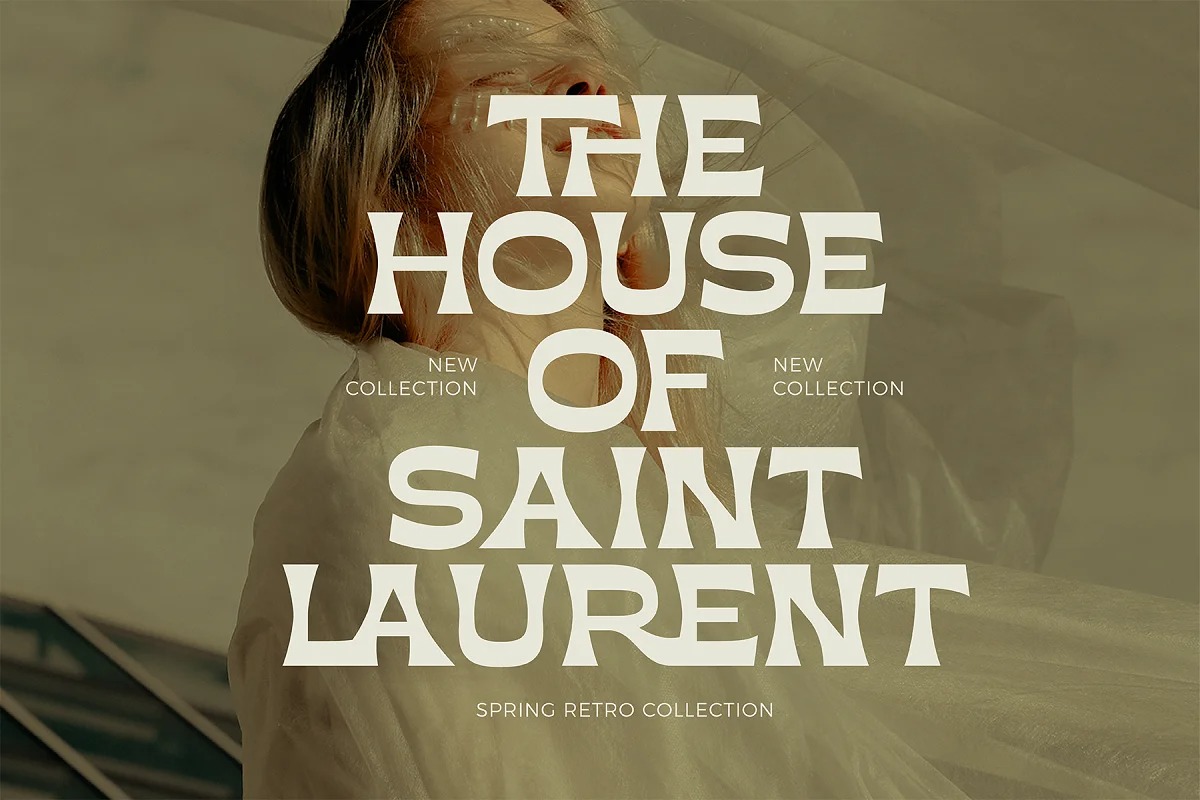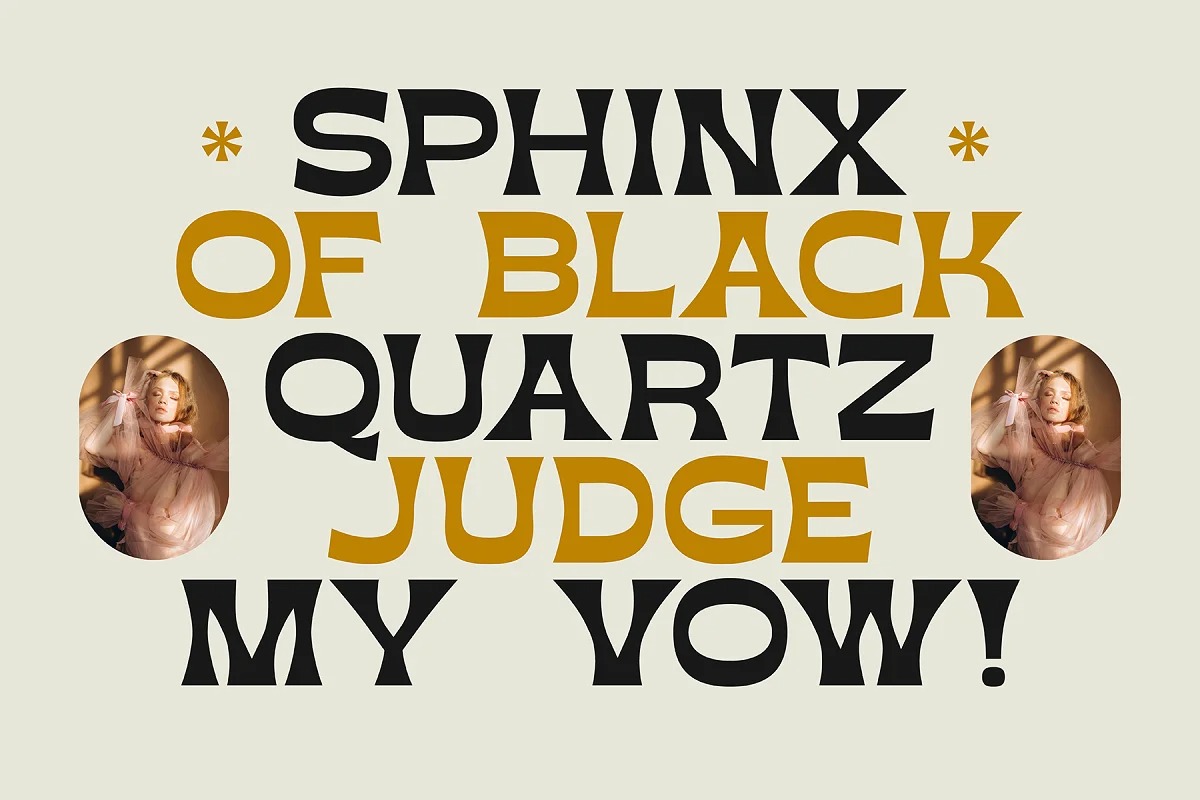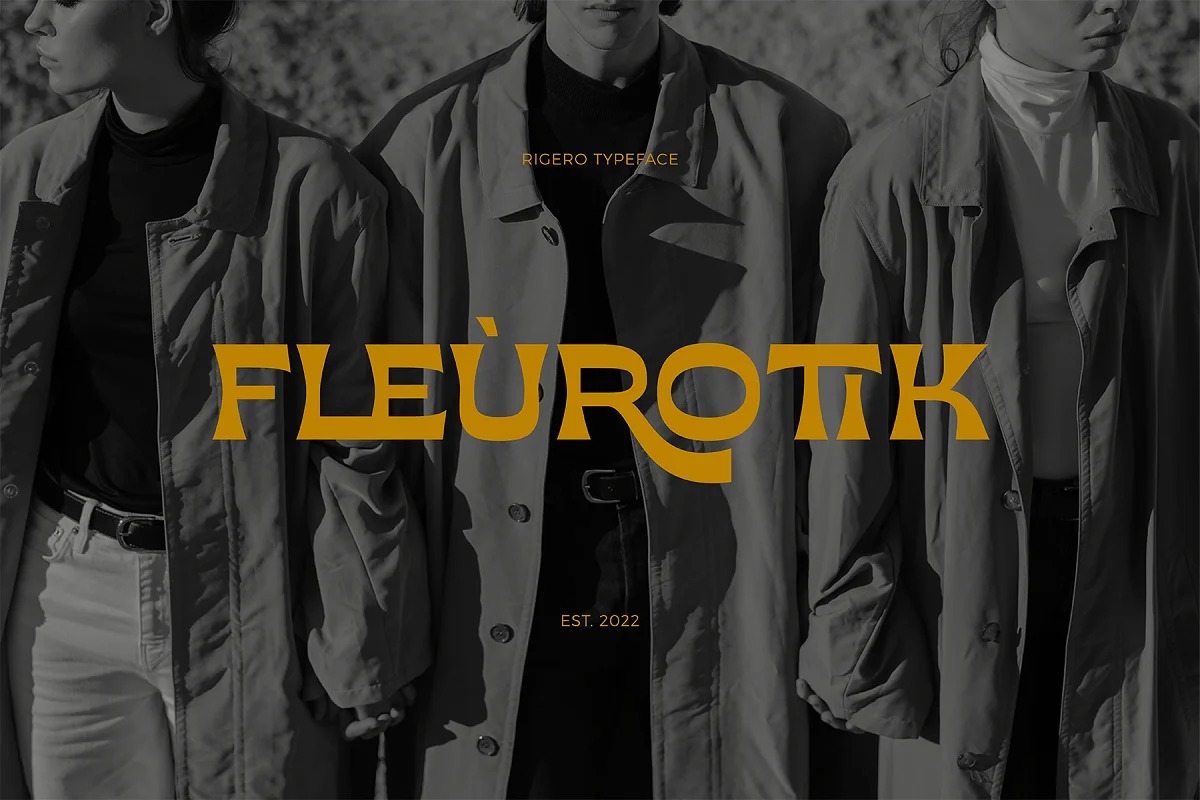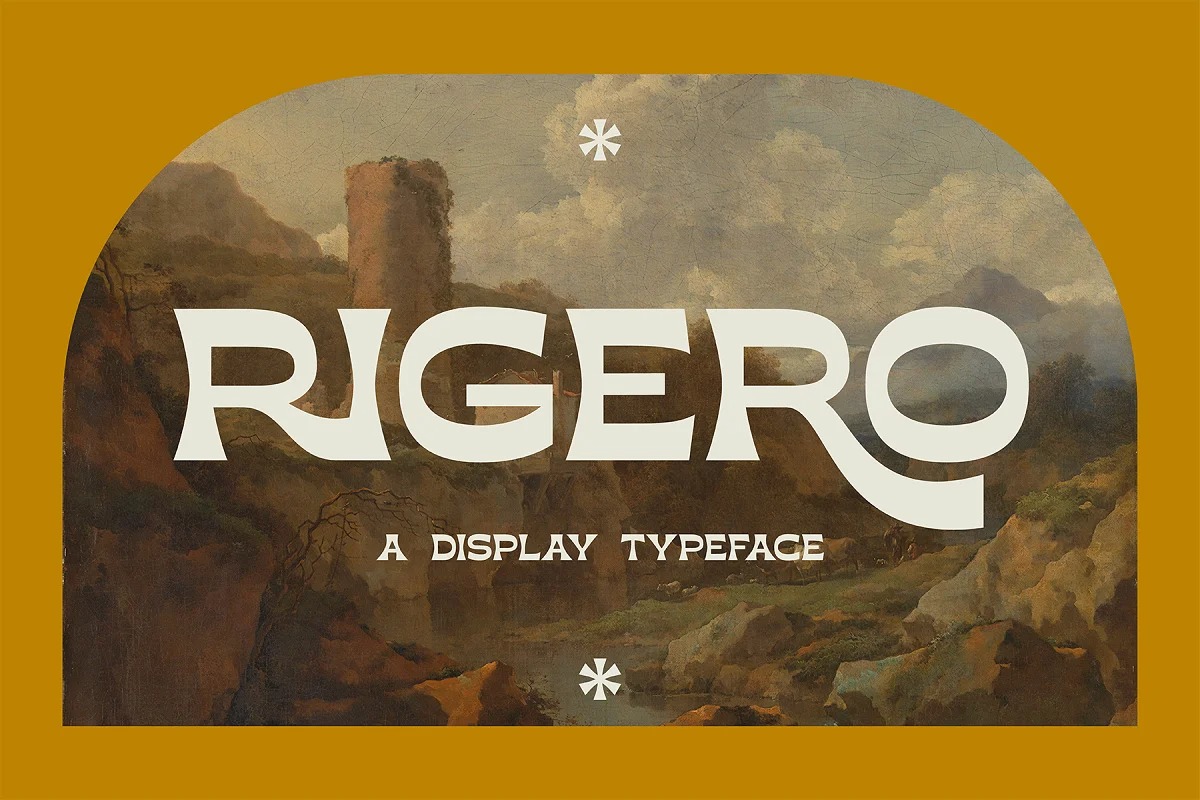
Rigero Display Font
This is a reverse contrast display typeface with a classic style. It has a bold and fun personality. Whether you’re creating branding materials, web headers or billboards, Rigero is up for the task. Rigero features a number of handy ligatures to help your work flow naturally.